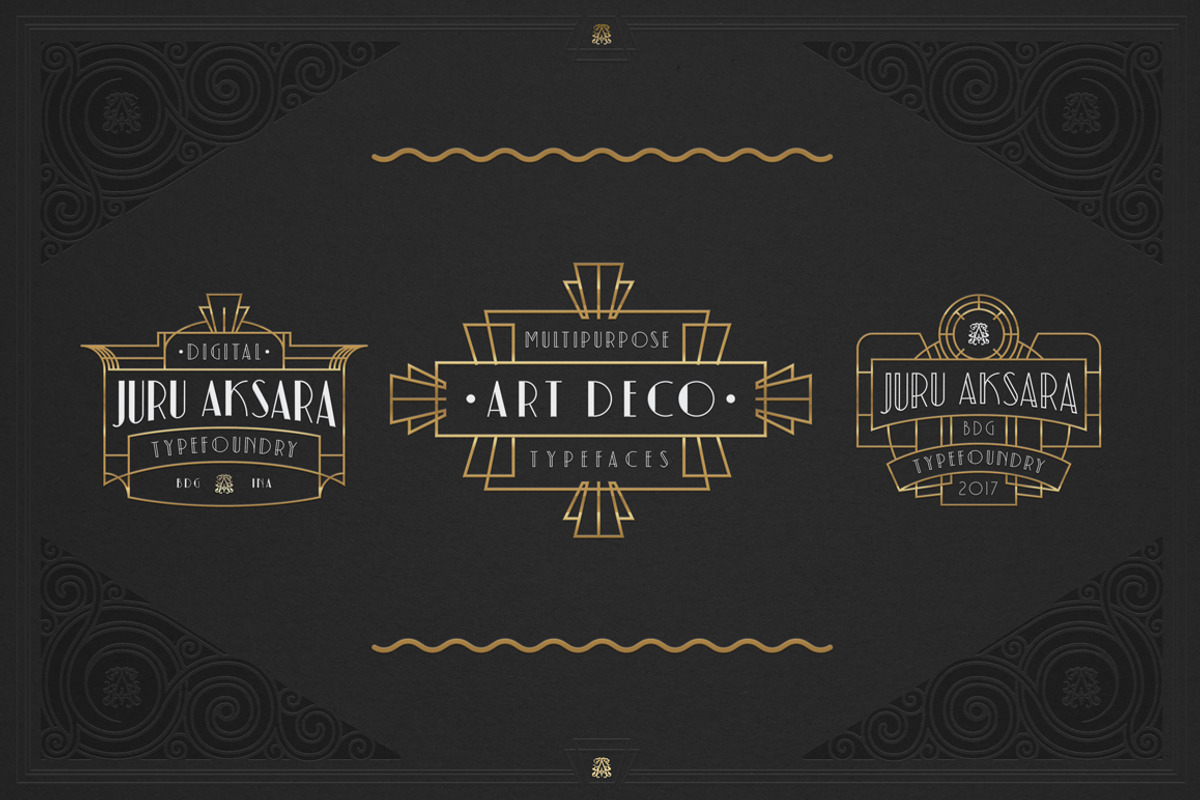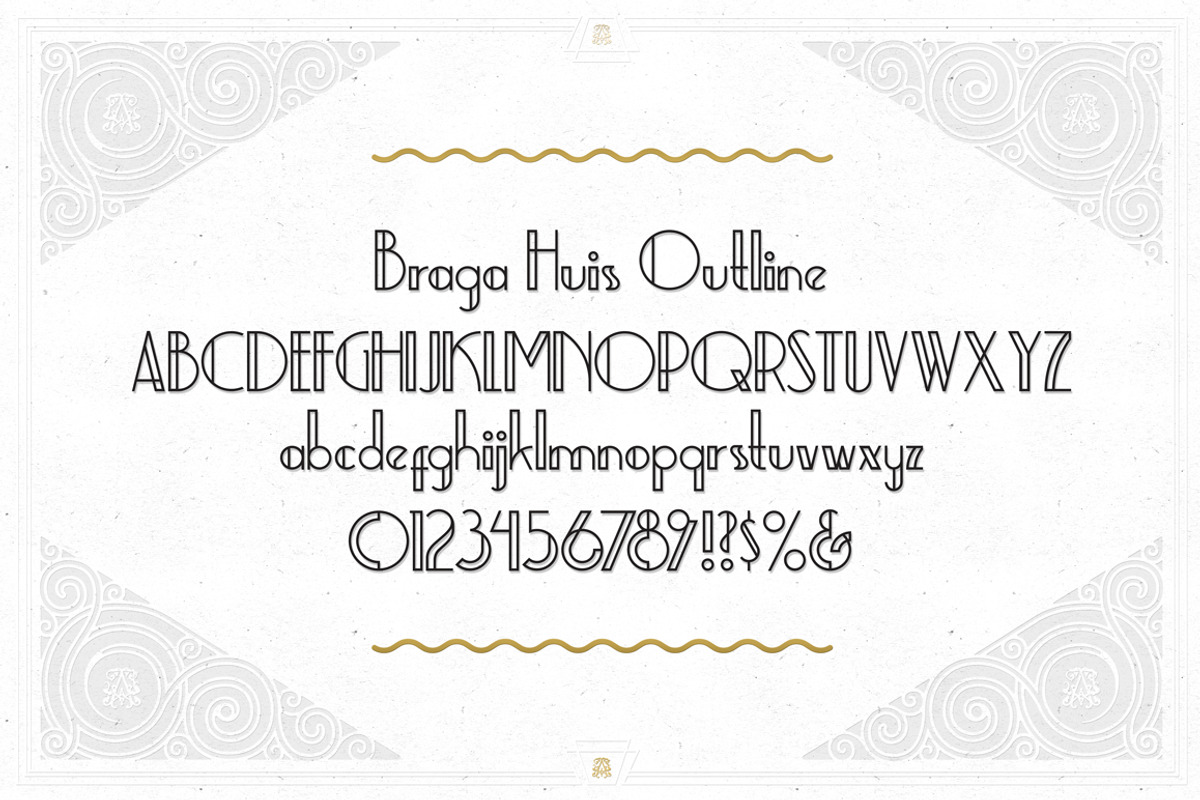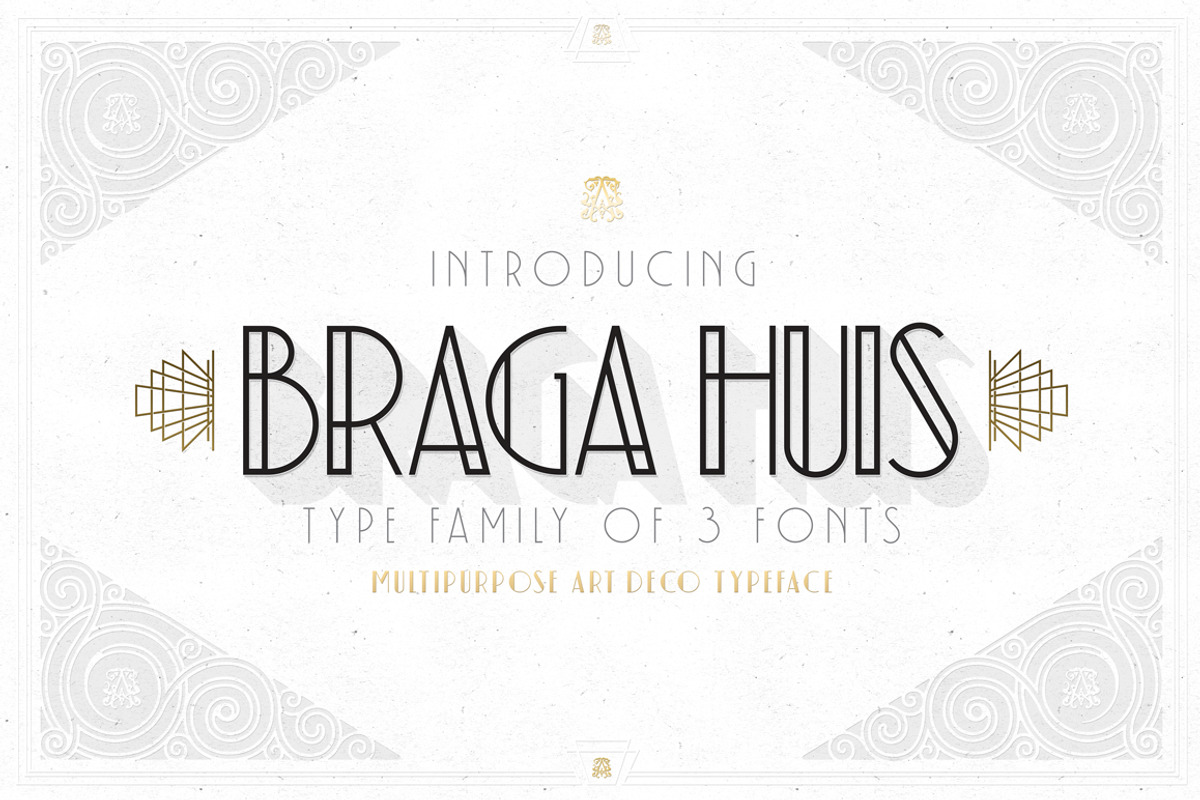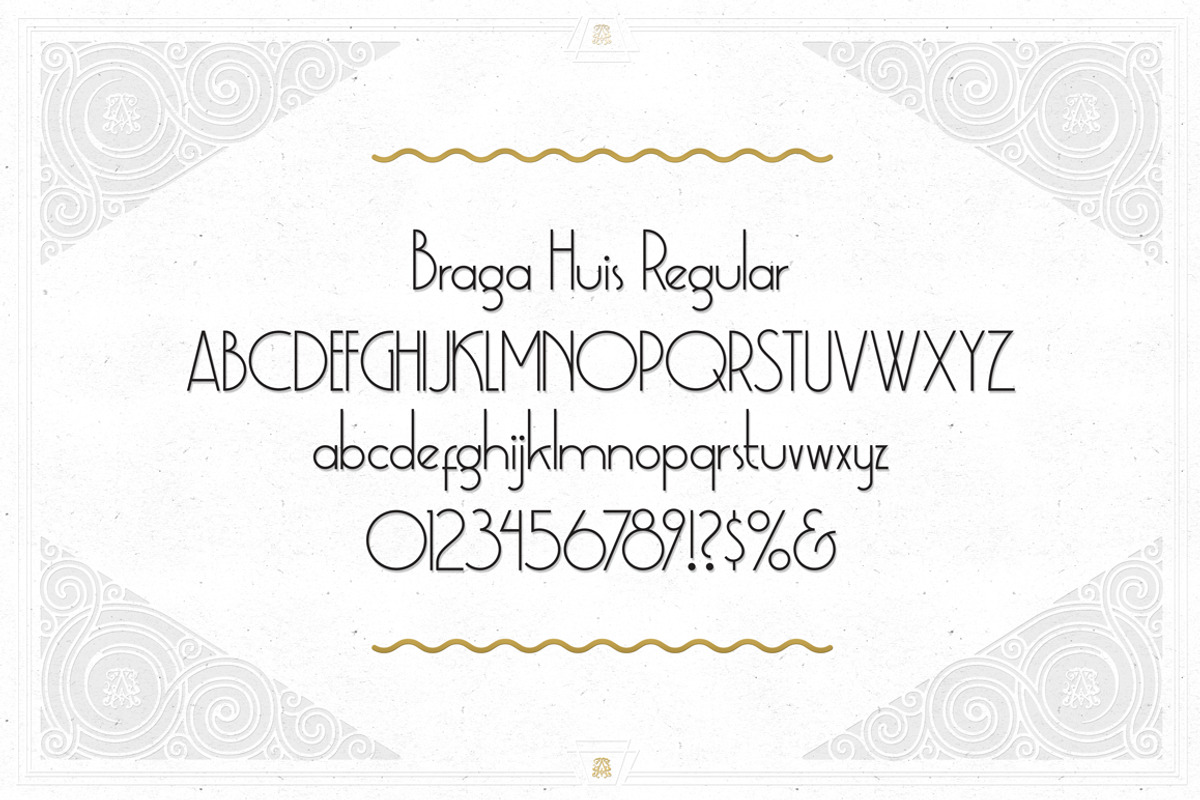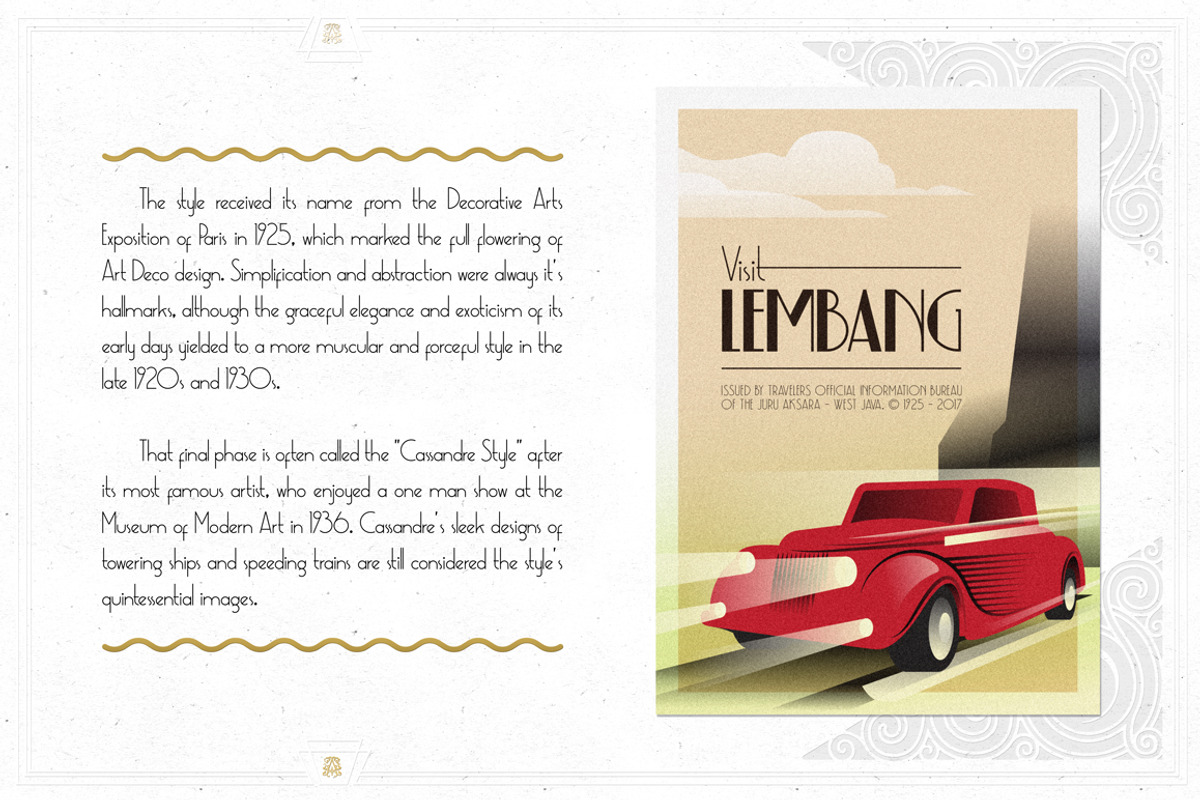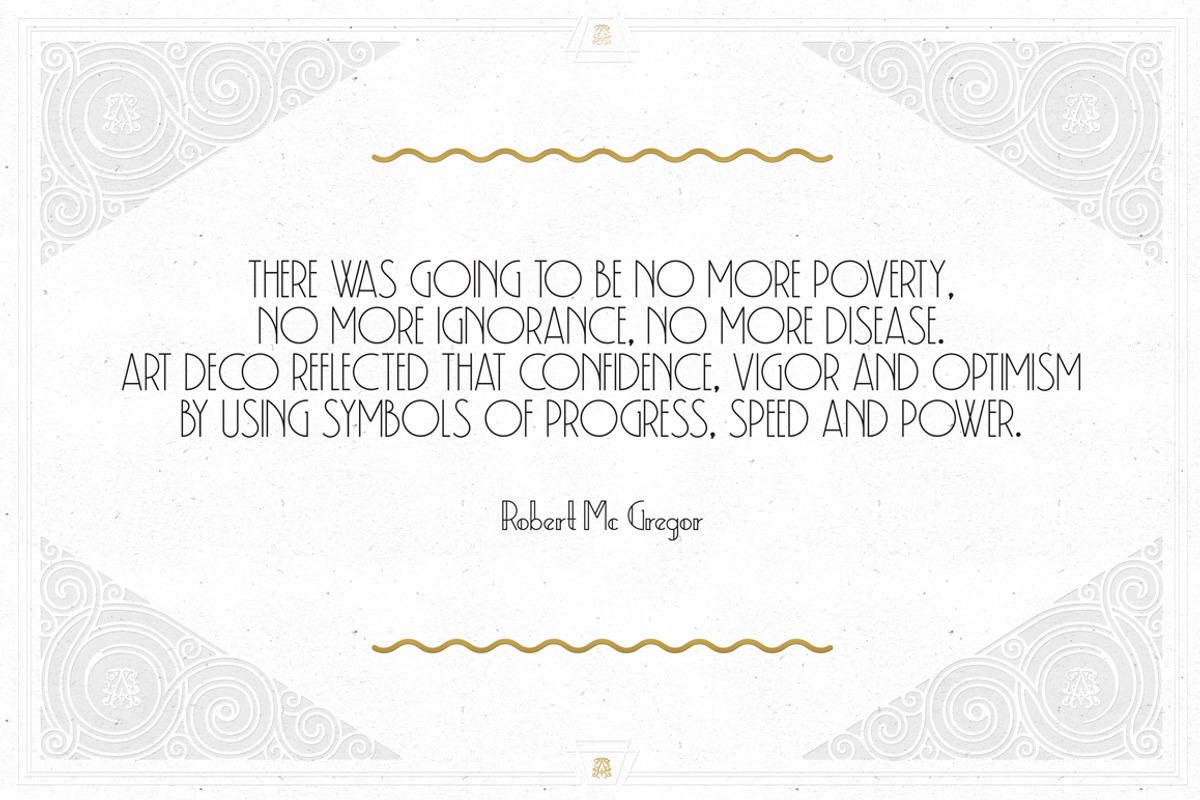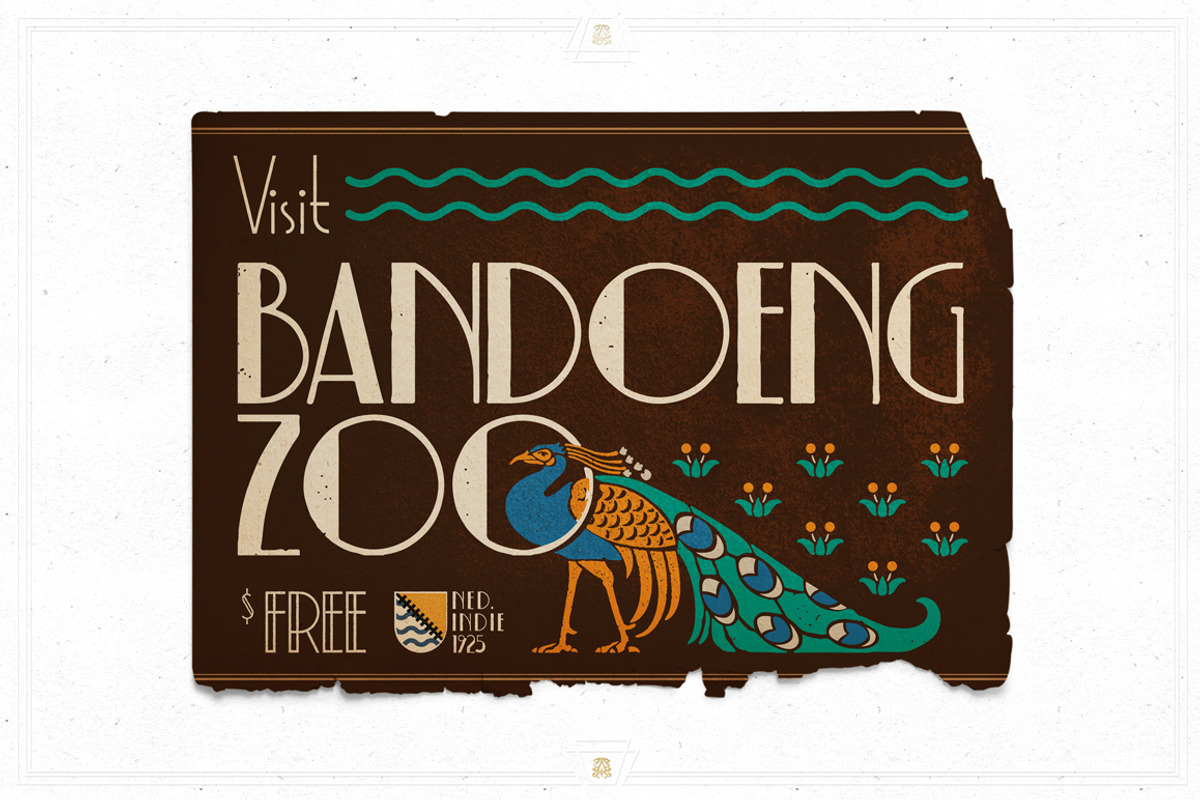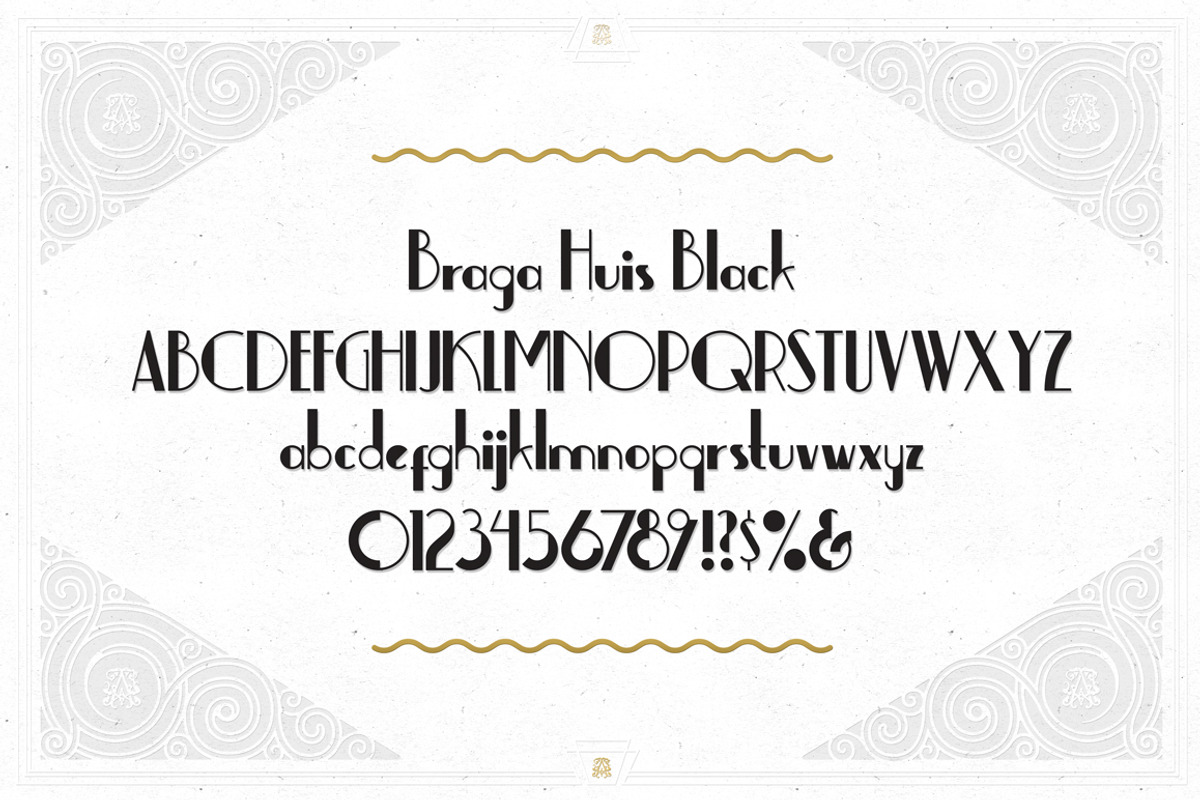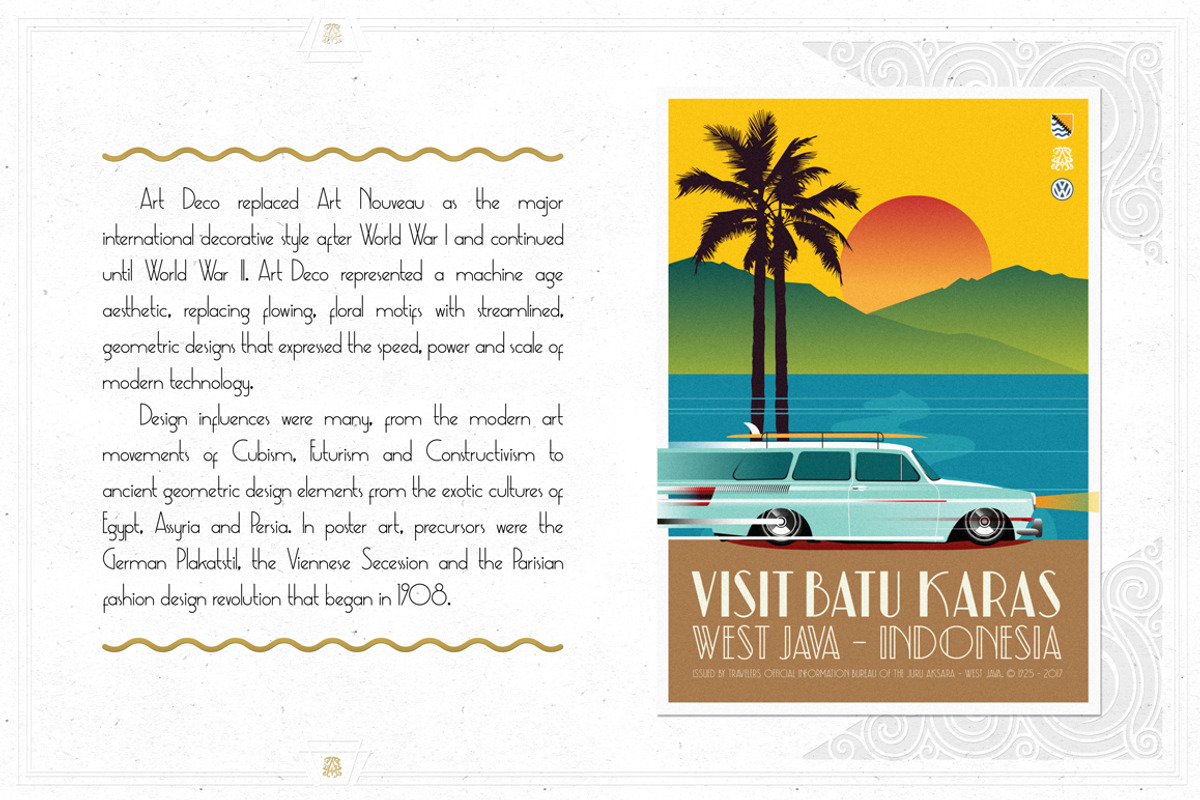
Braga Huis
Braga Huis typeface is a font family that is inspired by the famous street in Bandung that was made to embodies the atmosphere and the environment of Netherland-Indie city at its golden time, whereby all the elements were designed to give the impression of structural, artistic, and advance. Braga Huis typeface has a strong Art Deco character, where the impression is depicted from the strong lines, curvy passion so it is very appropriate to describing the future atmosphere from the perspective of the 19th century.
Braga Huis typeface has 3 font styles consisting of uppercase, lowercase and various alternative options that can be customize to your taste, poster is one of the media form of presentation that we believe is very appropriate for this type of font. But whatever the medium is, honestly we say; using Braga Huis typeface will make your artwork will never be cracked by time.